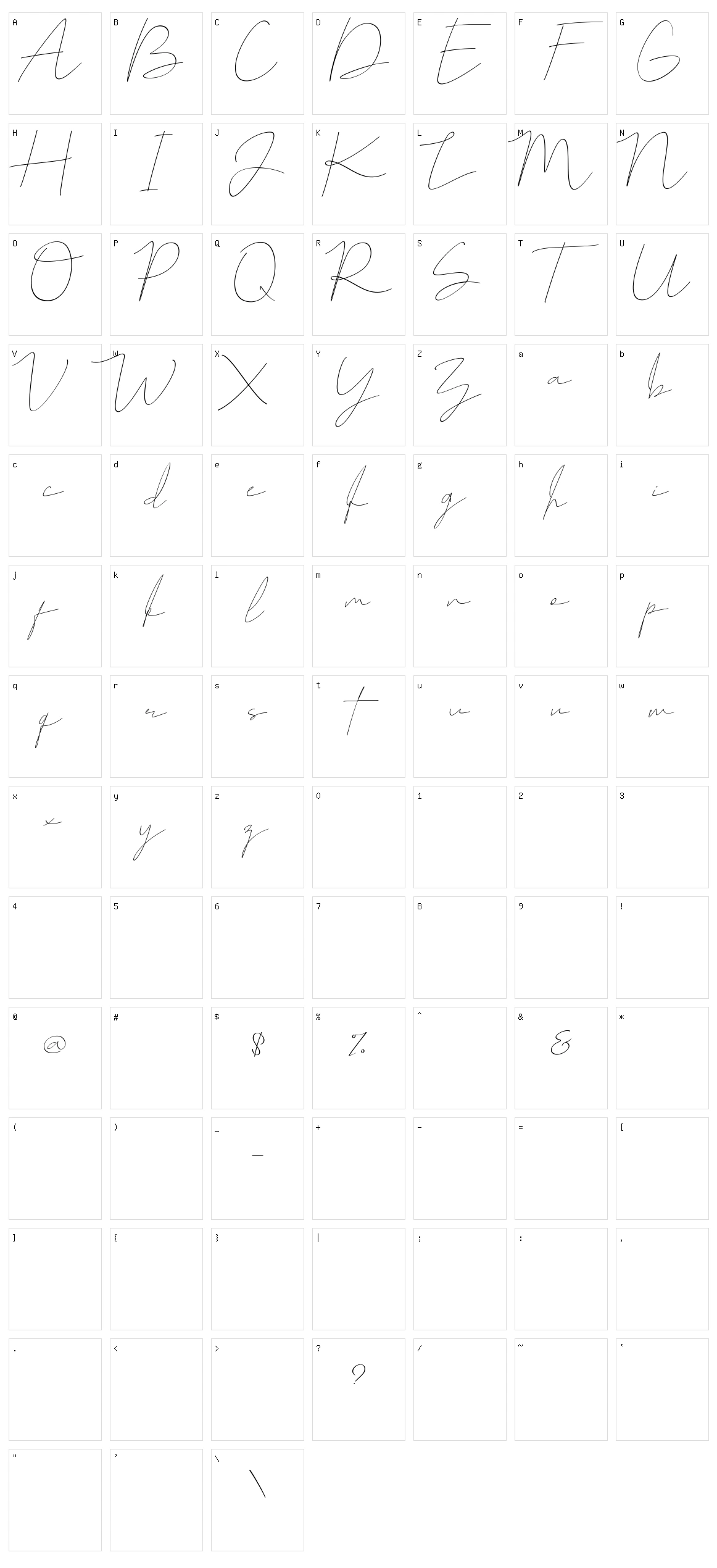
The free font Corleone is carefully designed by tkztype, showcasing a thoughtful balance of creativity and usability and falls under the Script font style. When you download the ZIP file, it contains only 20.21 KB of font files, making it lightweight and quick to download. Please review the license details below to understand permitted usage and distribution rights. If license information is not available, we recommend using this font for personal projects only or contacting the author directly for commercial usage permissions.